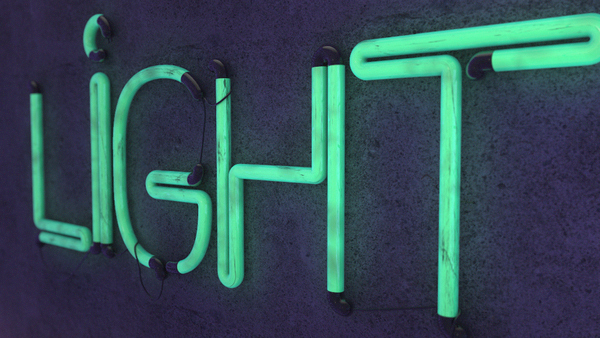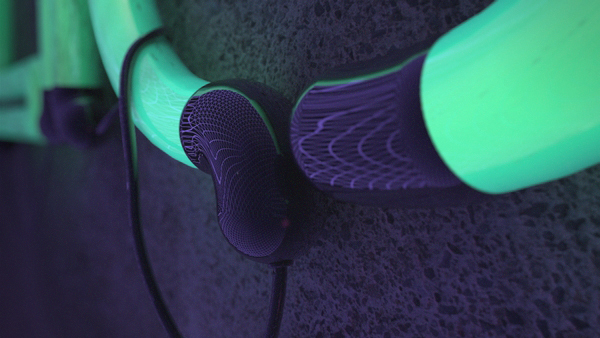
The Kabel free font is a new contemporary display typeface designed by Mathias Nösel. He started playing with Photoshop in 2002. Studied from 2007 to 2010 graphic & design in Munich and working until now at Serviceplan Munich. One of most successfully ad-agencies in Germany. In his free-time Mathias often working for fun projects like The Kabel Font. This font is not useful for long texts. With this font you can design nice topics. Have fun!